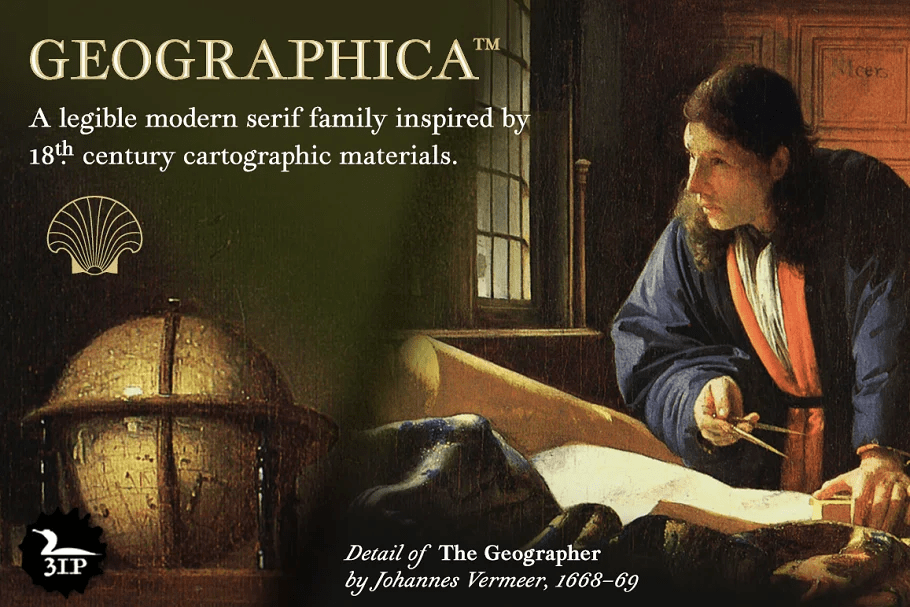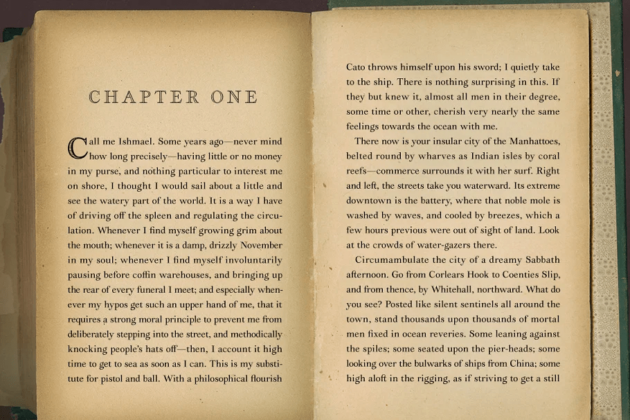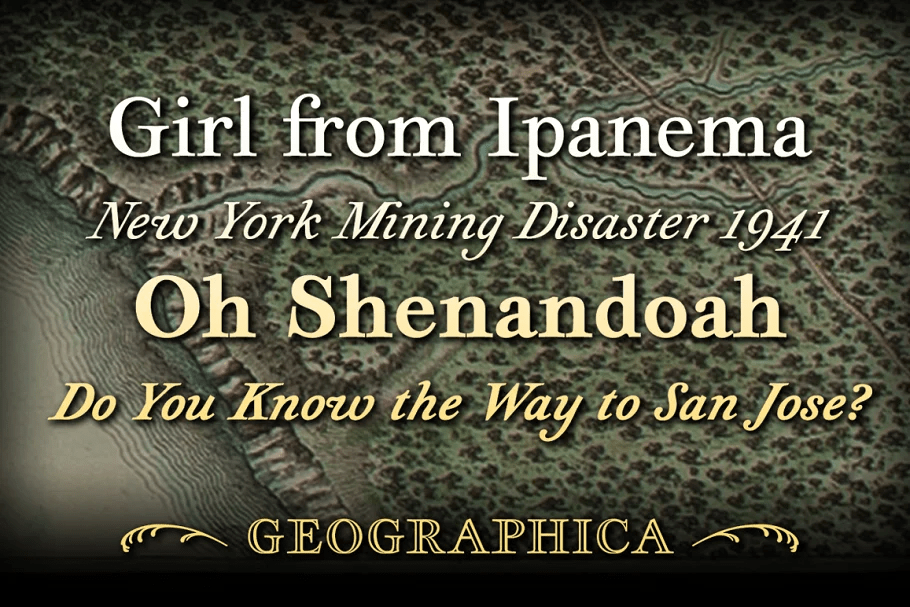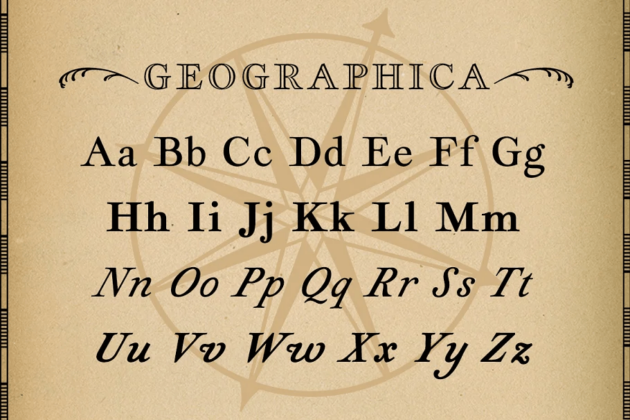
Geographica is a legible, four-style serif family modeled after the neat hand-lettered place names and peripheral text on the 18th century maps of Thomas Jefferys (ca. 1710-1771), Geographer to King George III. With its long serifs, tall x-height, and…